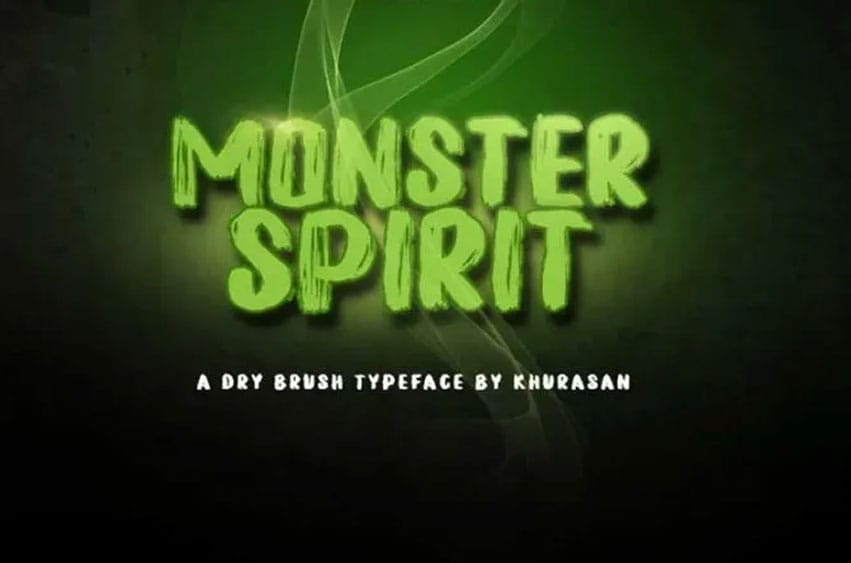
Monster Spirit Font is a new unmatched handwritten dry brush font that clearly has come out of the royal vintage font family.
It is also worth to mention the support of the fonts named as Monster Spirit, multilingual types of fonts support, numerical symbols, and punctuations. Monster Spirit Font perfect for logo, branding, greeting card, poster, and any design that you make.